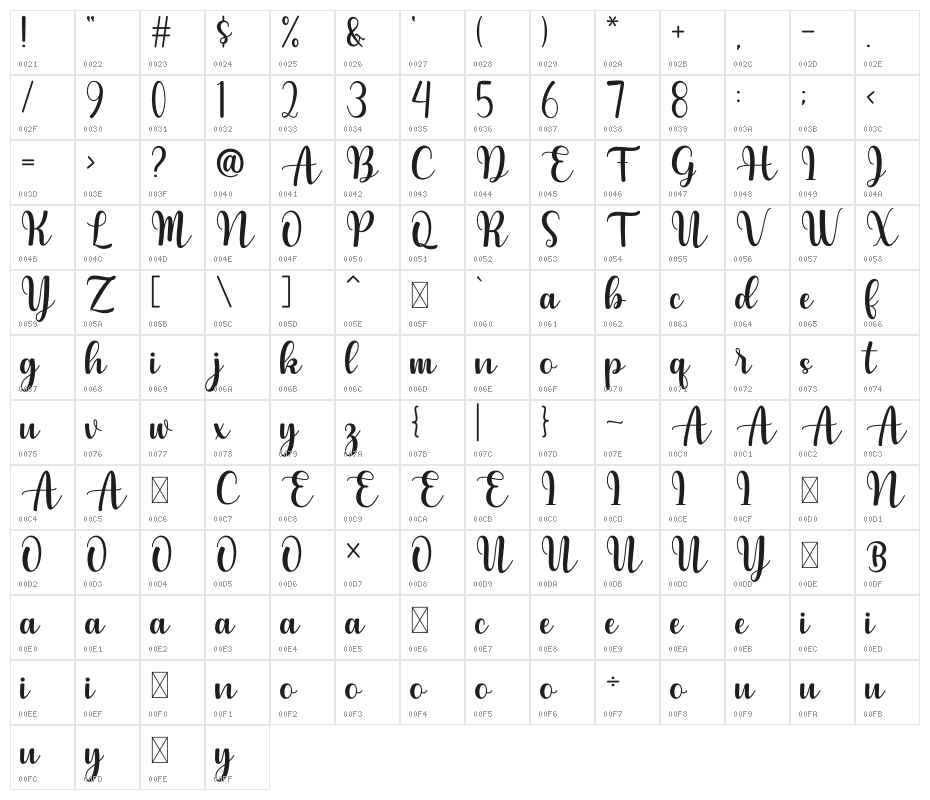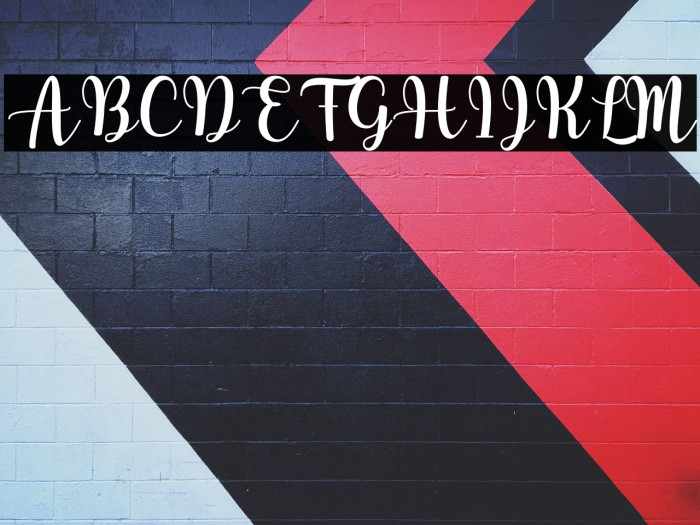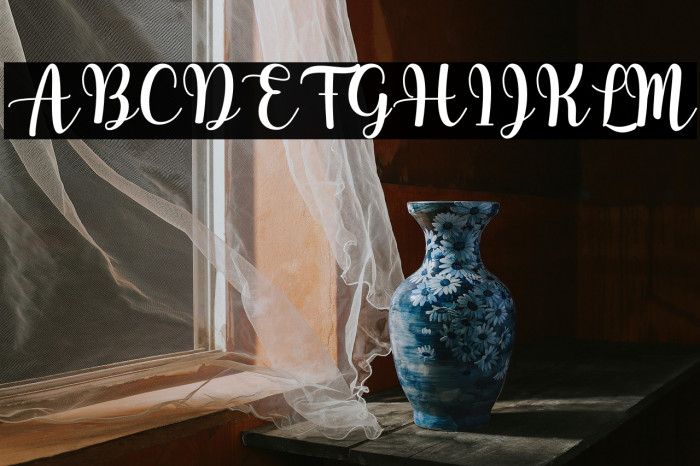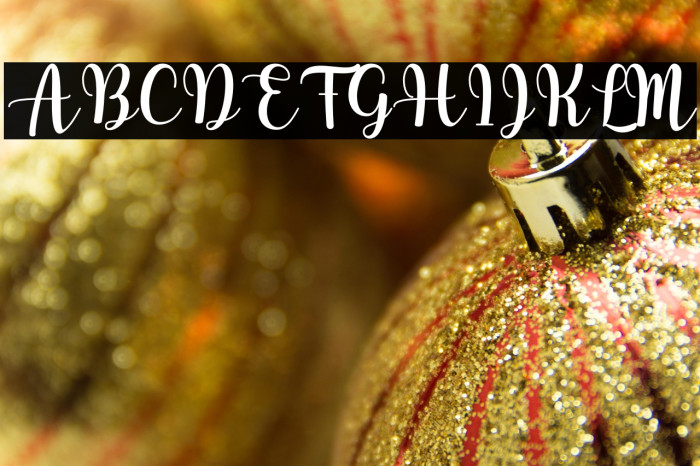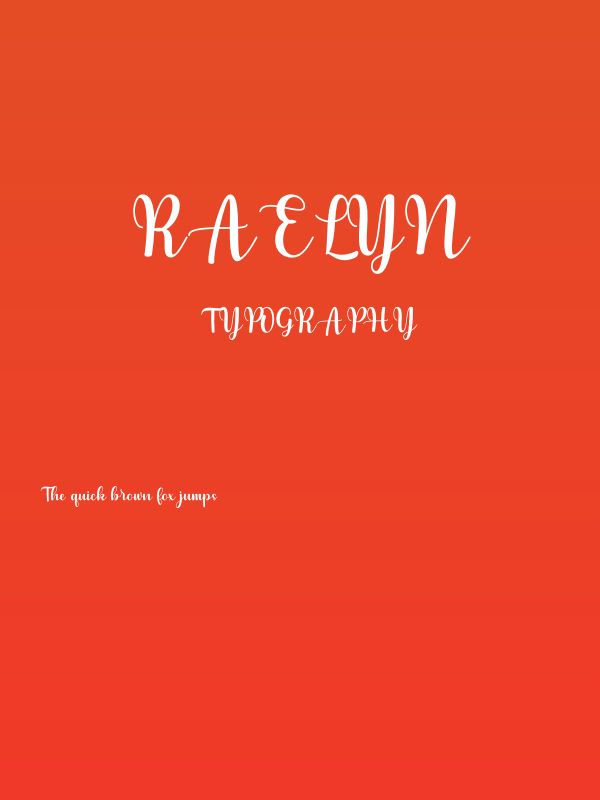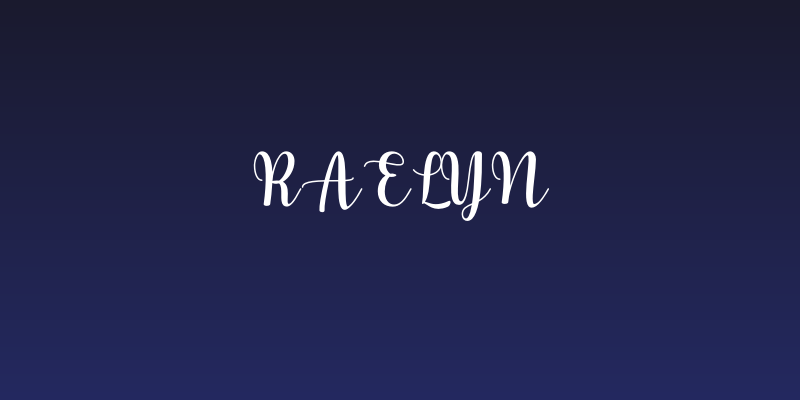
Raelyn Font
Raelyn Description
This font features a charming and elegant script style with a handwritten appearance. The uppercase letters are gracefully connected, while the lowercase letters maintain a fluid and smooth flow. The characters exhibit a playful yet sophisticated look, with varying stroke widths that add a dynamic feel. The numerals are consistent with the overall style, offering a cohesive look across all characters. Special characters are designed with the same attention to detail, ensuring they blend seamlessly with the rest of the font. This font is perfect for projects that require a personal touch, such as invitations, greeting cards, and branding materials.
| Proposed Projects | Ideal for invitations, greeting cards, branding, and personal projects. |